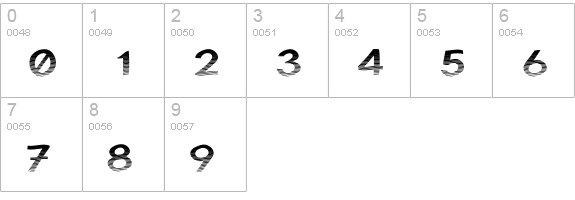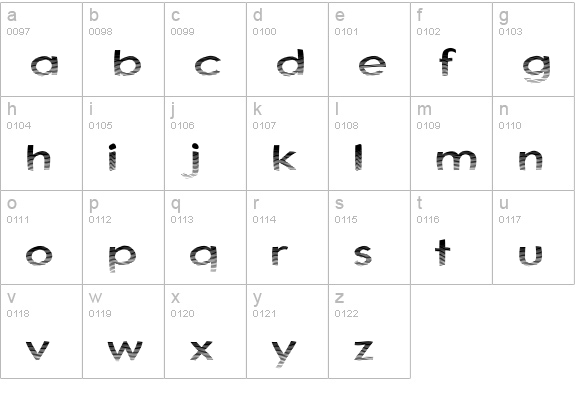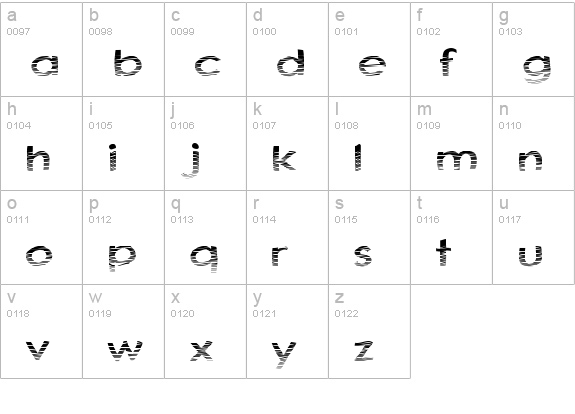
Australian Sunset Font Details
Australian Sunset font is a beautiful and versatile typeface that captures the essence of the Australian outback in its design. With its unique blend of rugged elegance and modern flair, this font is perfect for adding a touch of rustic charm to your projects. The warm, earthy tones of Australian Sunset evoke the feeling of watching the sun set over the vast Australian landscape. What's even better is that Australian Sunset font is available for free download at FontsMarket.com, making it easily accessible for all your design needs. Whether you're working on a branding project, creating invitations, or designing social media graphics, Australian Sunset font is sure to make a stunning impression. Add a touch of down under magic to your designs with Australian Sunset font today!